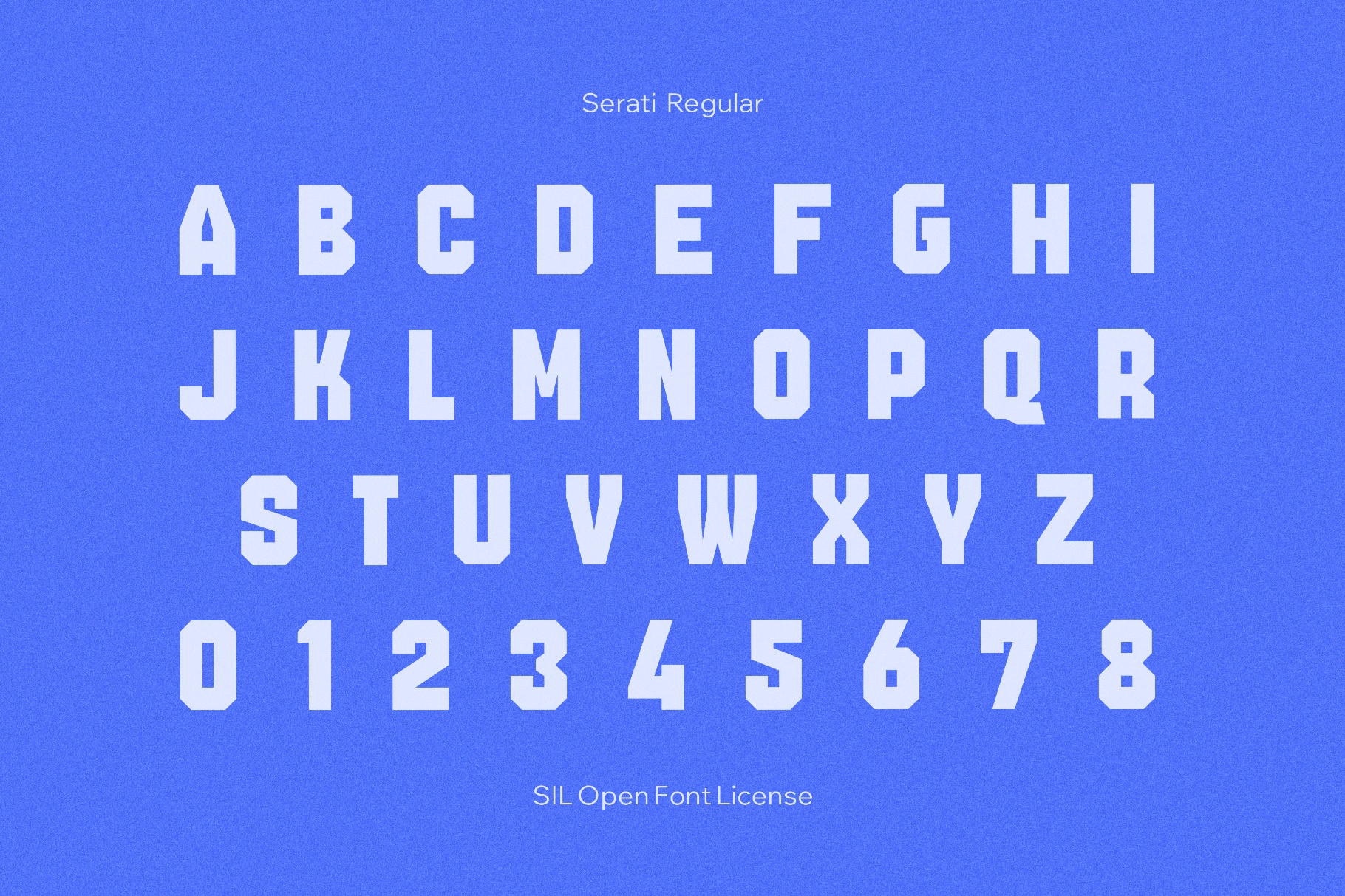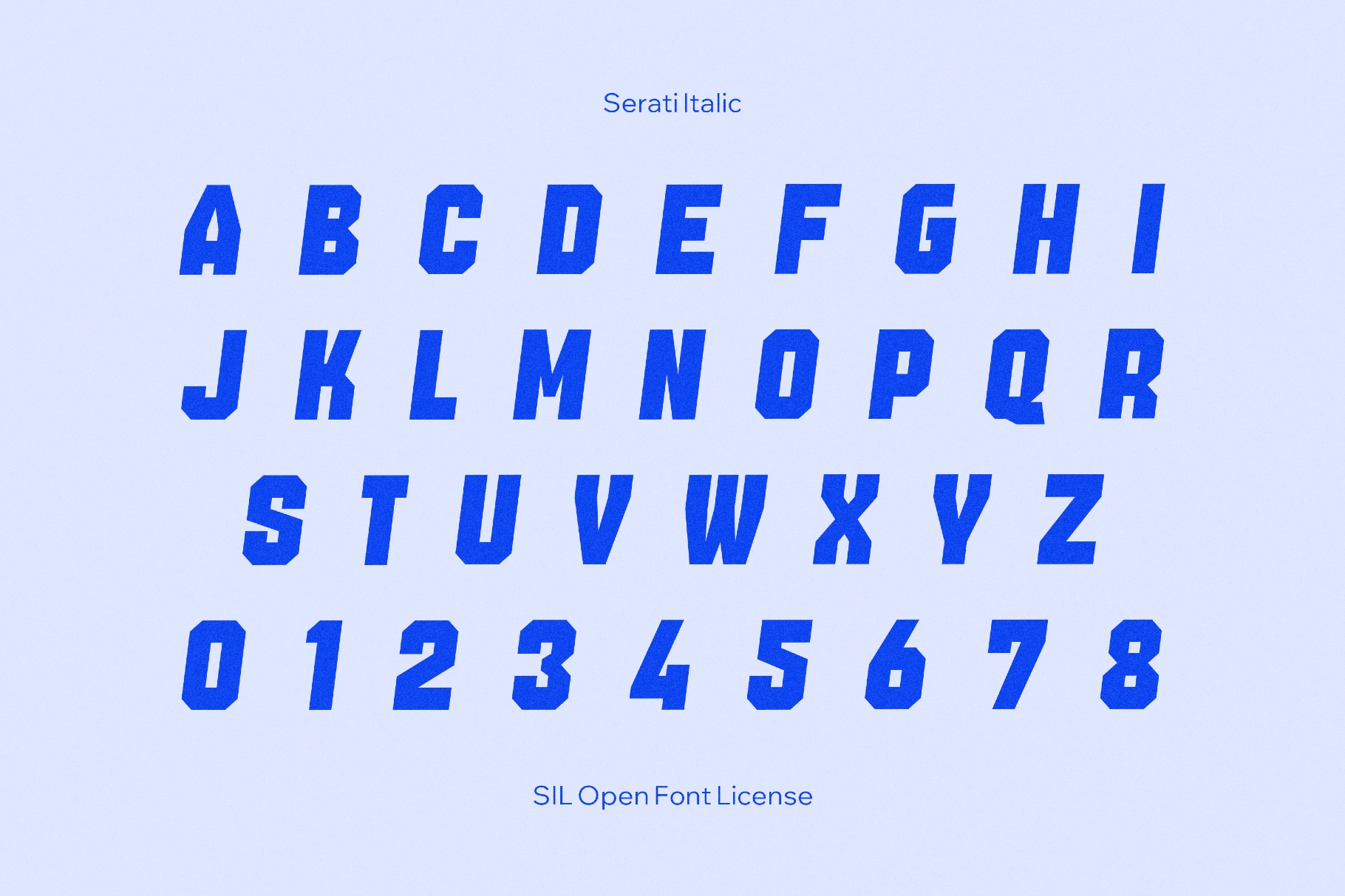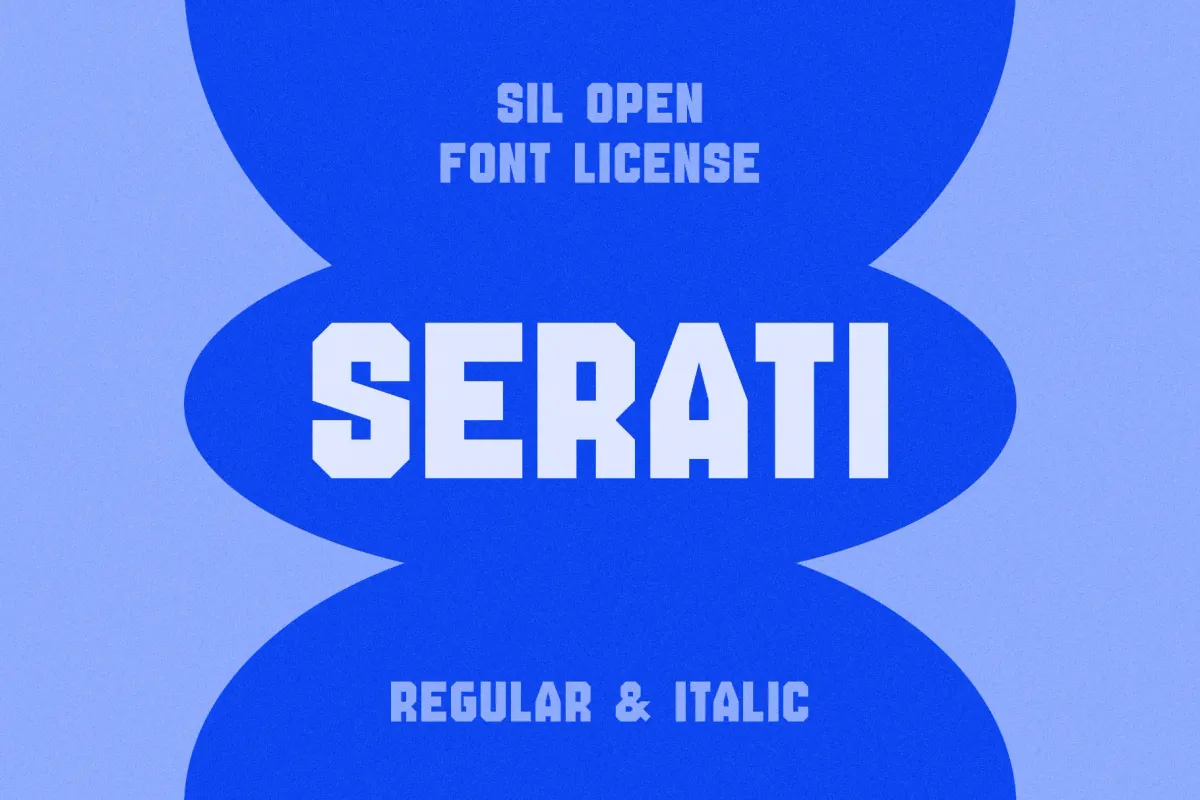
Serati Jersey Font
Serati
Thick, crisp strokes of the poised, high-contrast Serati deliver contemporary editorial typography shaped by Didone elegance and Renaissance forms. You can use it for luxury branding, magazine headlines, book covers, editorials, interface and HUD labels, packaging for boutique goods, invitation suites, film titles, and polished social campaigns.
Included
- Two styles: Regular and Regular Italic.
- Uppercase letters, numbers, punctuation, and symbols.
- International characters with multilingual support across extended Latin, extended Cyrillic, and Greek scripts.
- Extended support for mathematical symbols and metrics.
- Extra symbols and a small set of ligatures.
- A handful of dingbats.